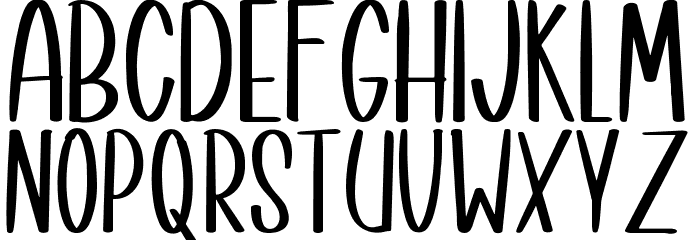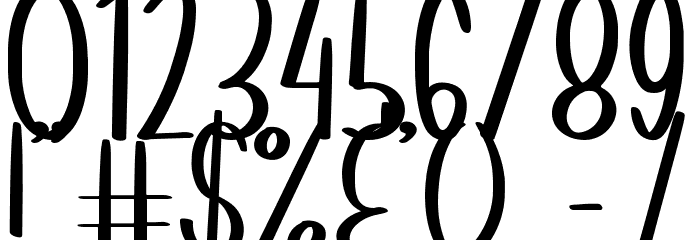
Better Unicorn Font
This font features a playful and whimsical design with tall, narrow letters that have a hand-drawn appearance. The strokes are smooth and consistent, giving it a casual yet stylish look. The uppercase and lowercase letters maintain a uniform height, contributing to its cohesive aesthetic. The numbers and special characters follow the same design principles, ensuring versatility across different uses. The overall style is modern and friendly, making it suitable for projects that require a touch of personality and creativity.
A playful, hand-drawn font with tall, narrow letters and a modern, whimsical style.
- Proposed Projects: Ideal for children's books, playful branding, greeting cards, and creative social media graphics.
- Overall Style: Modern, Whimsical
- Use Case: Headlines, Logos, Creative projects